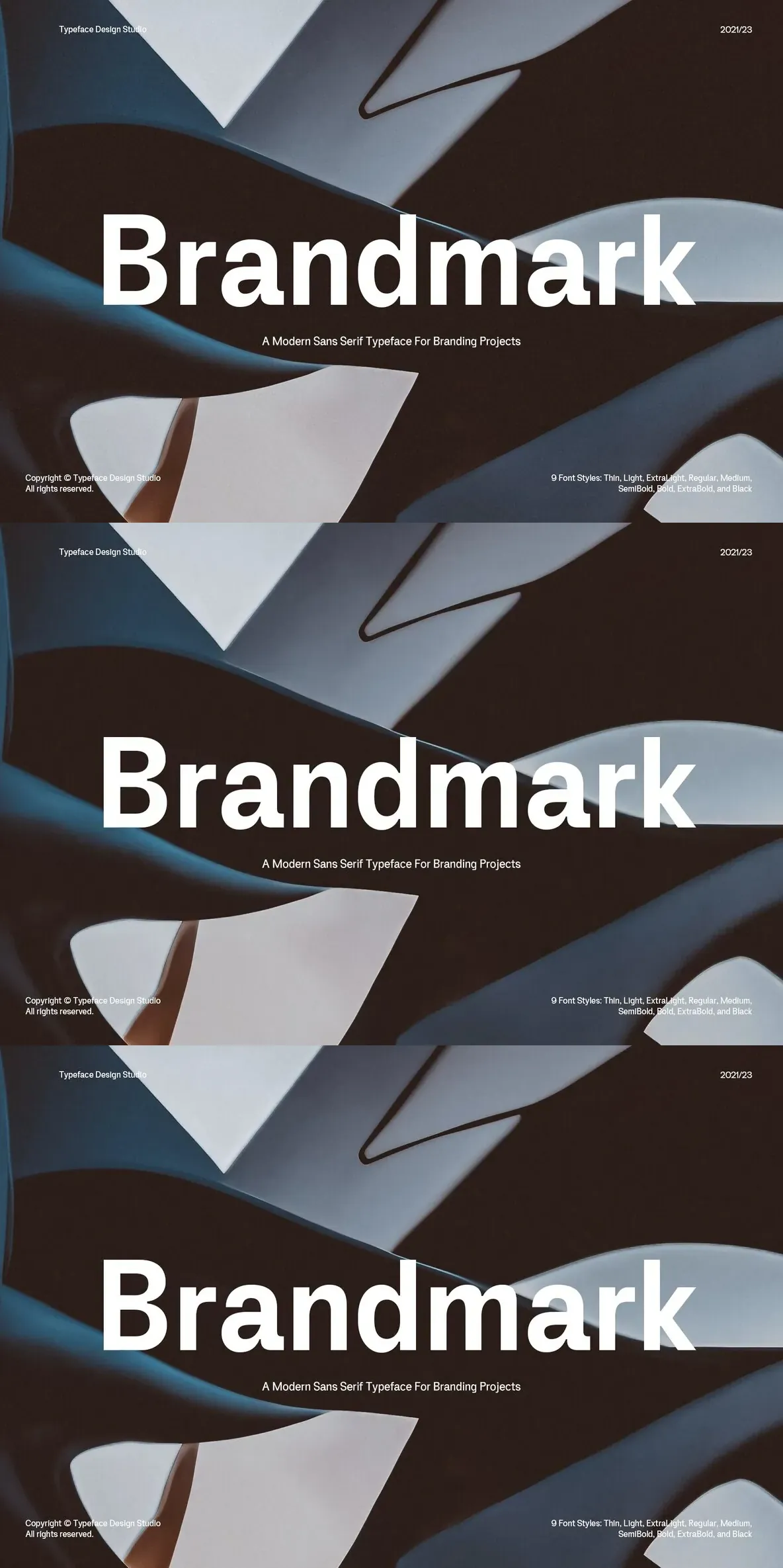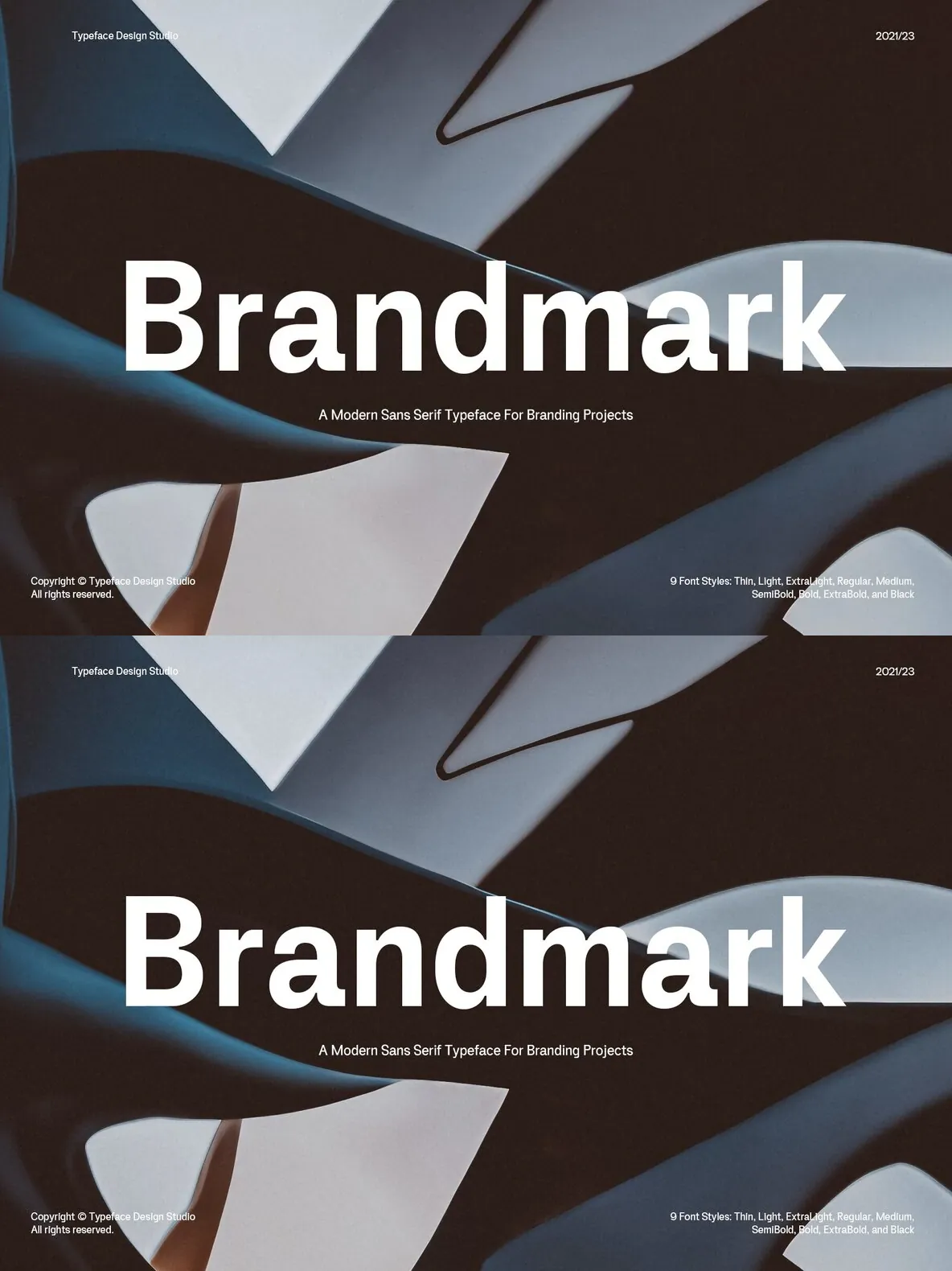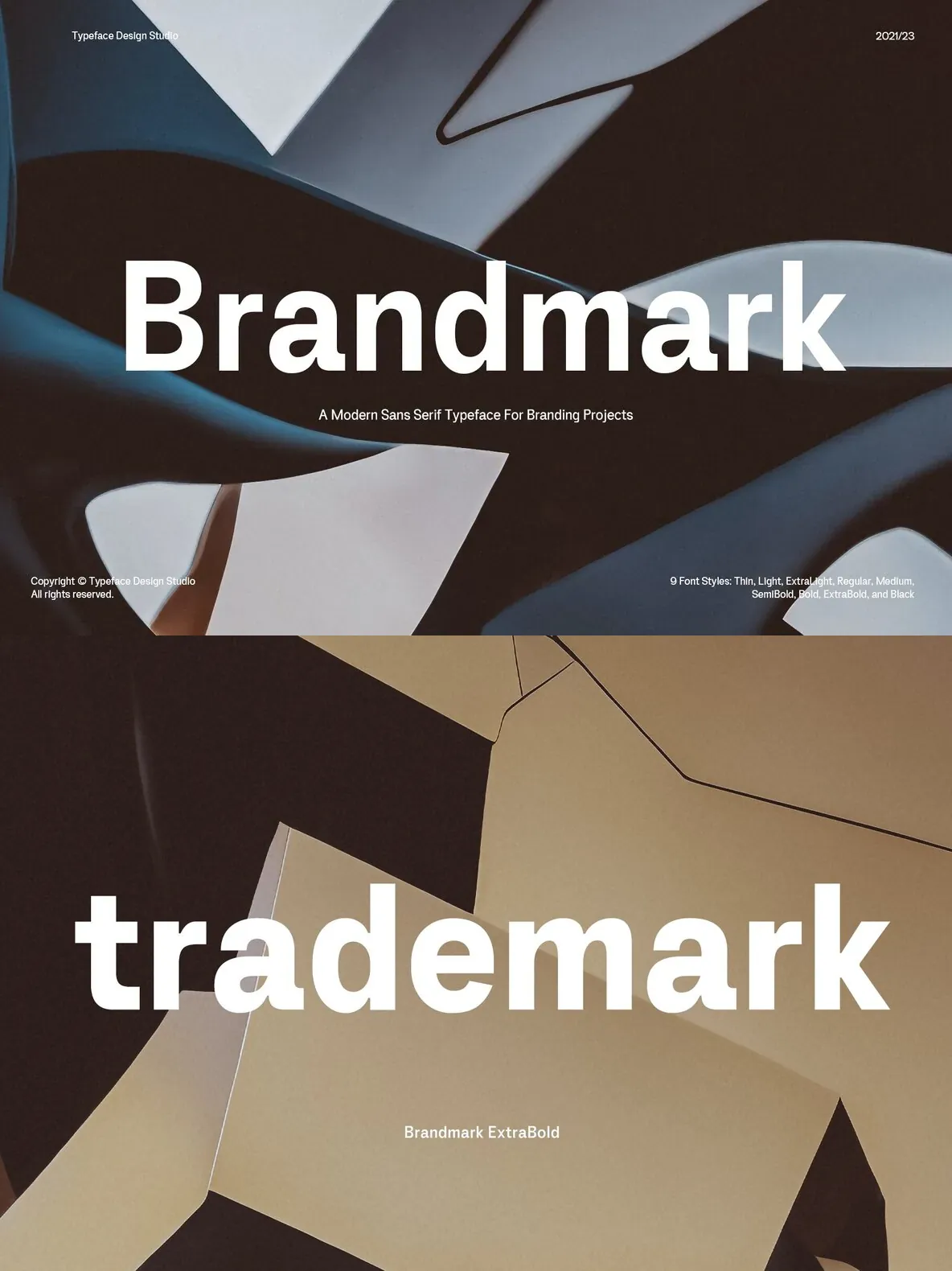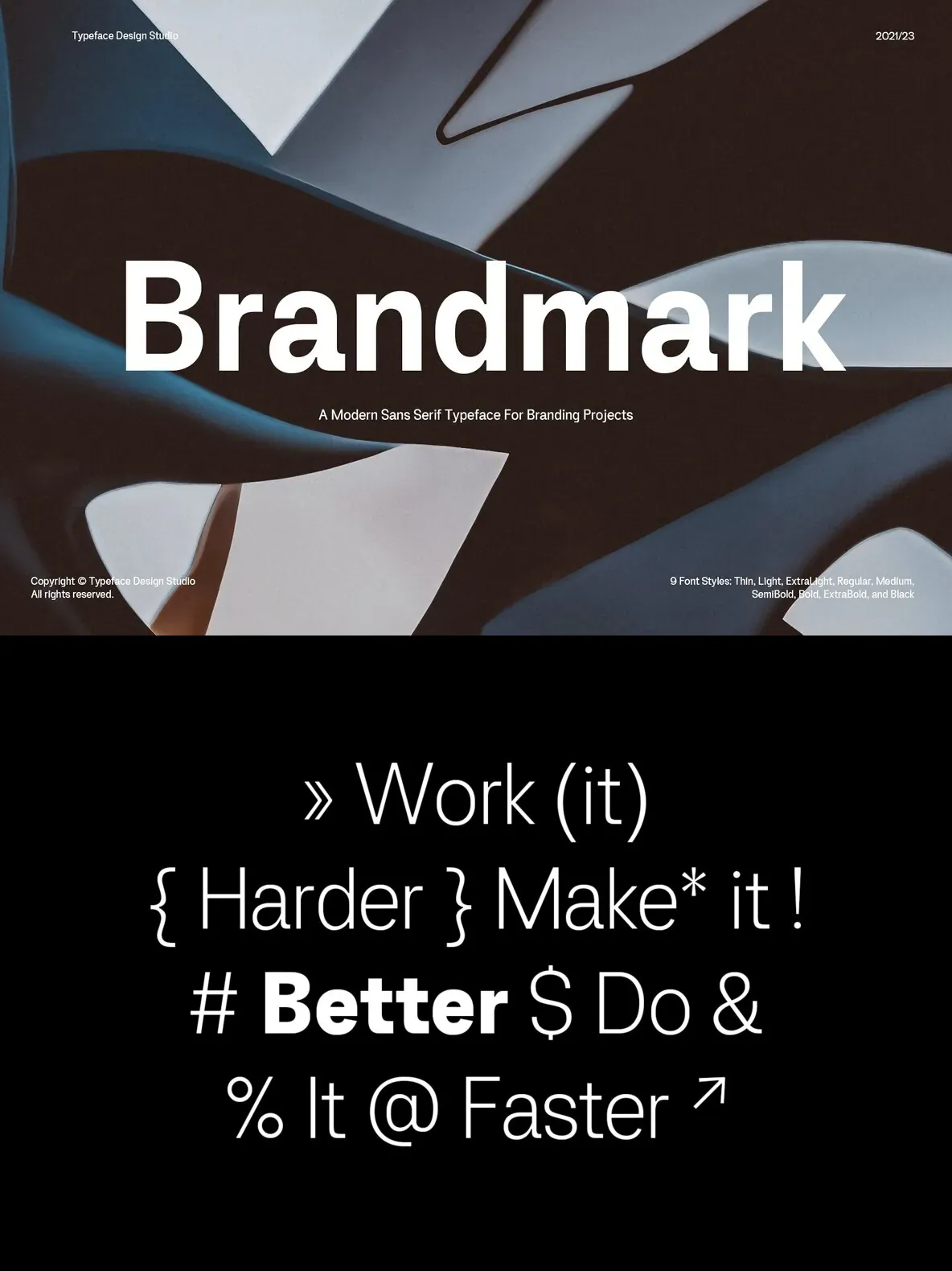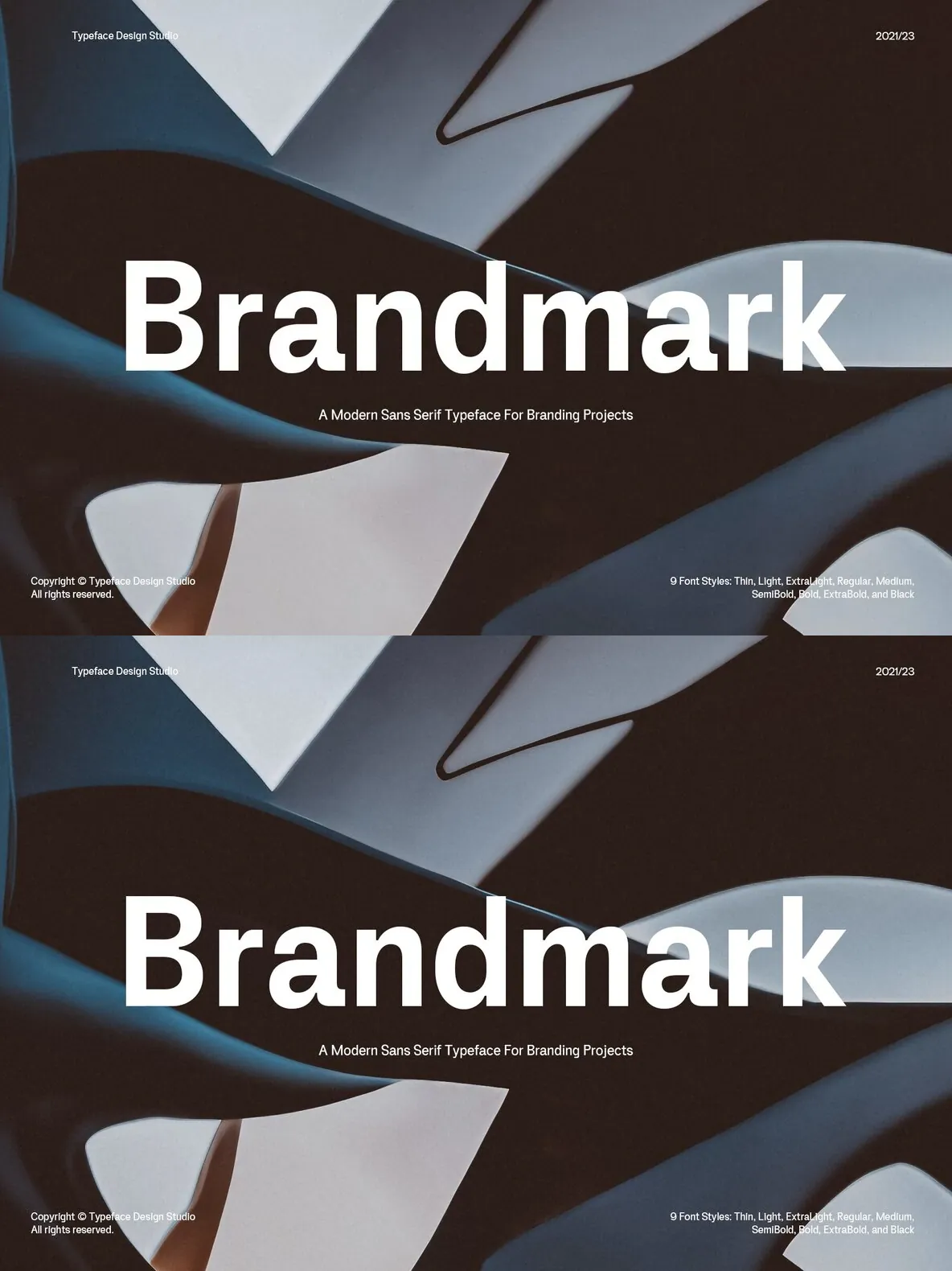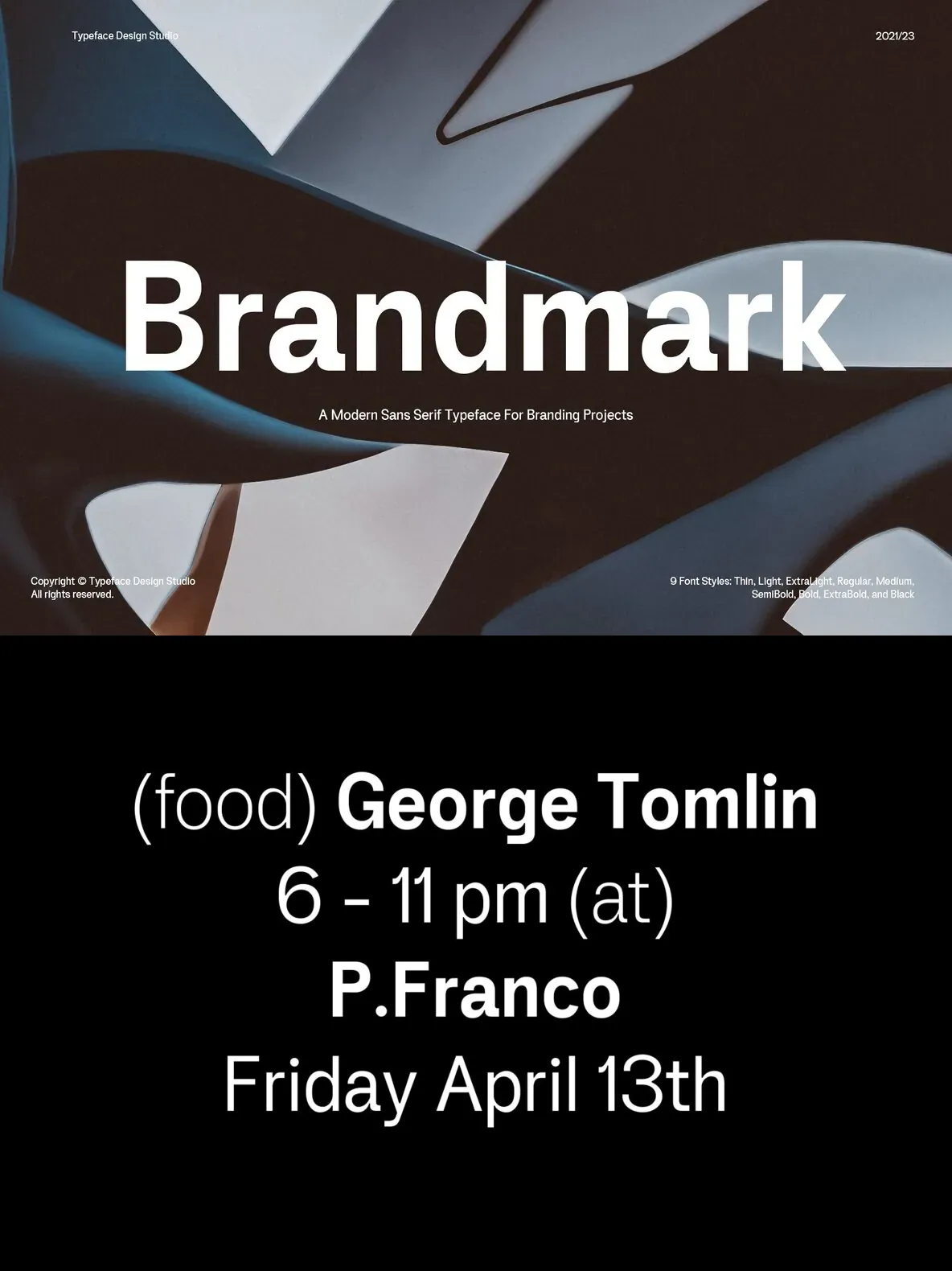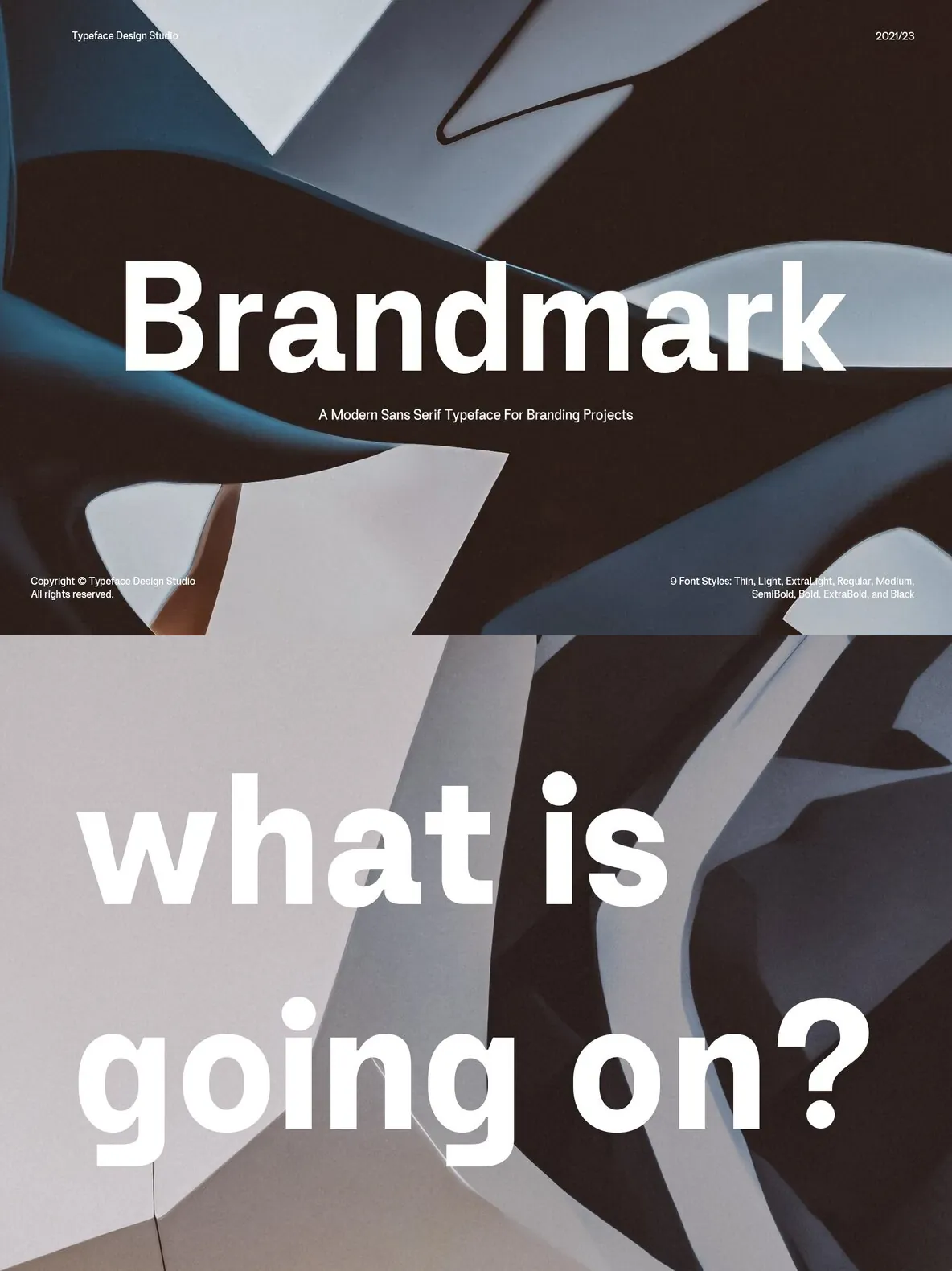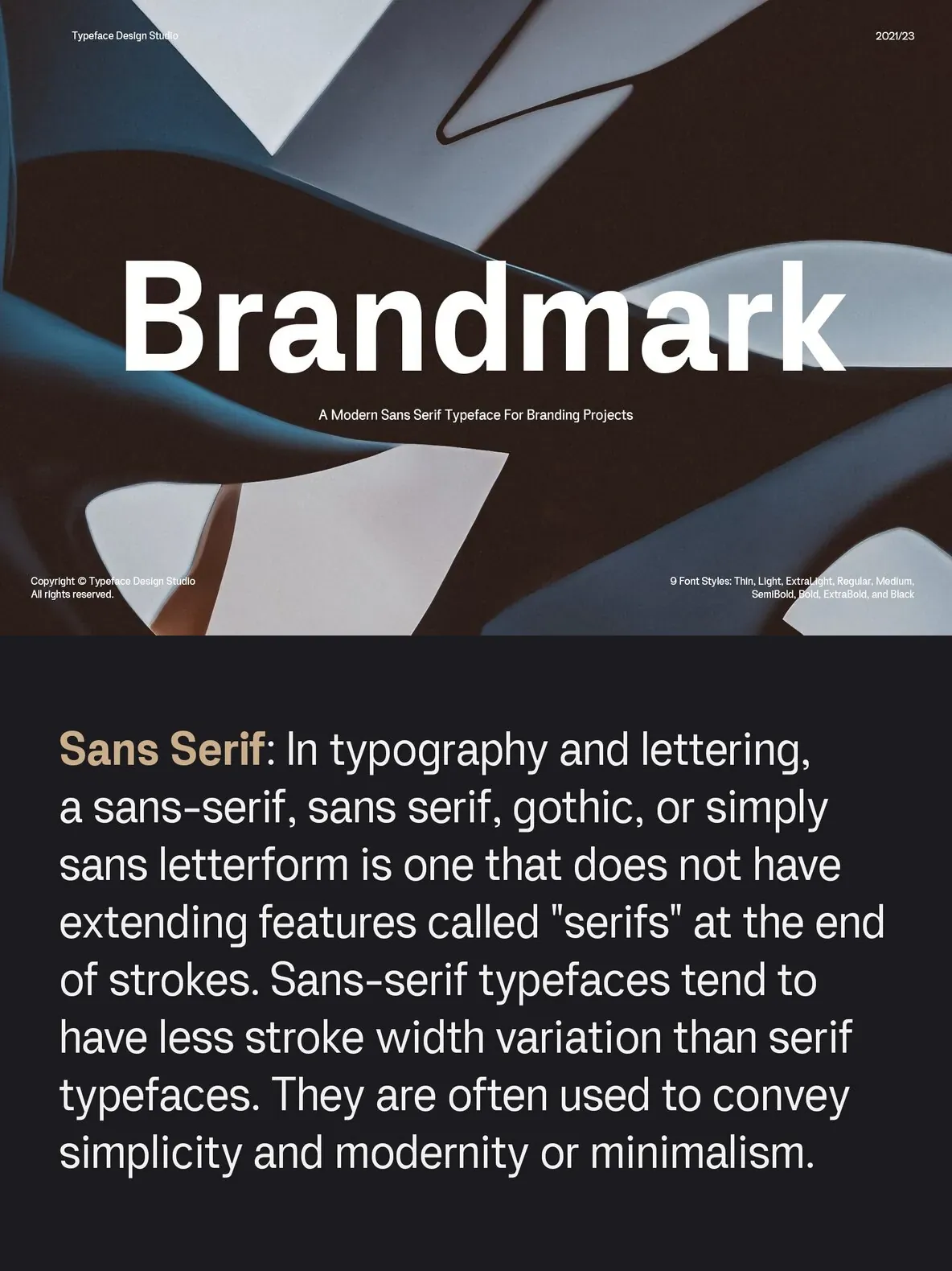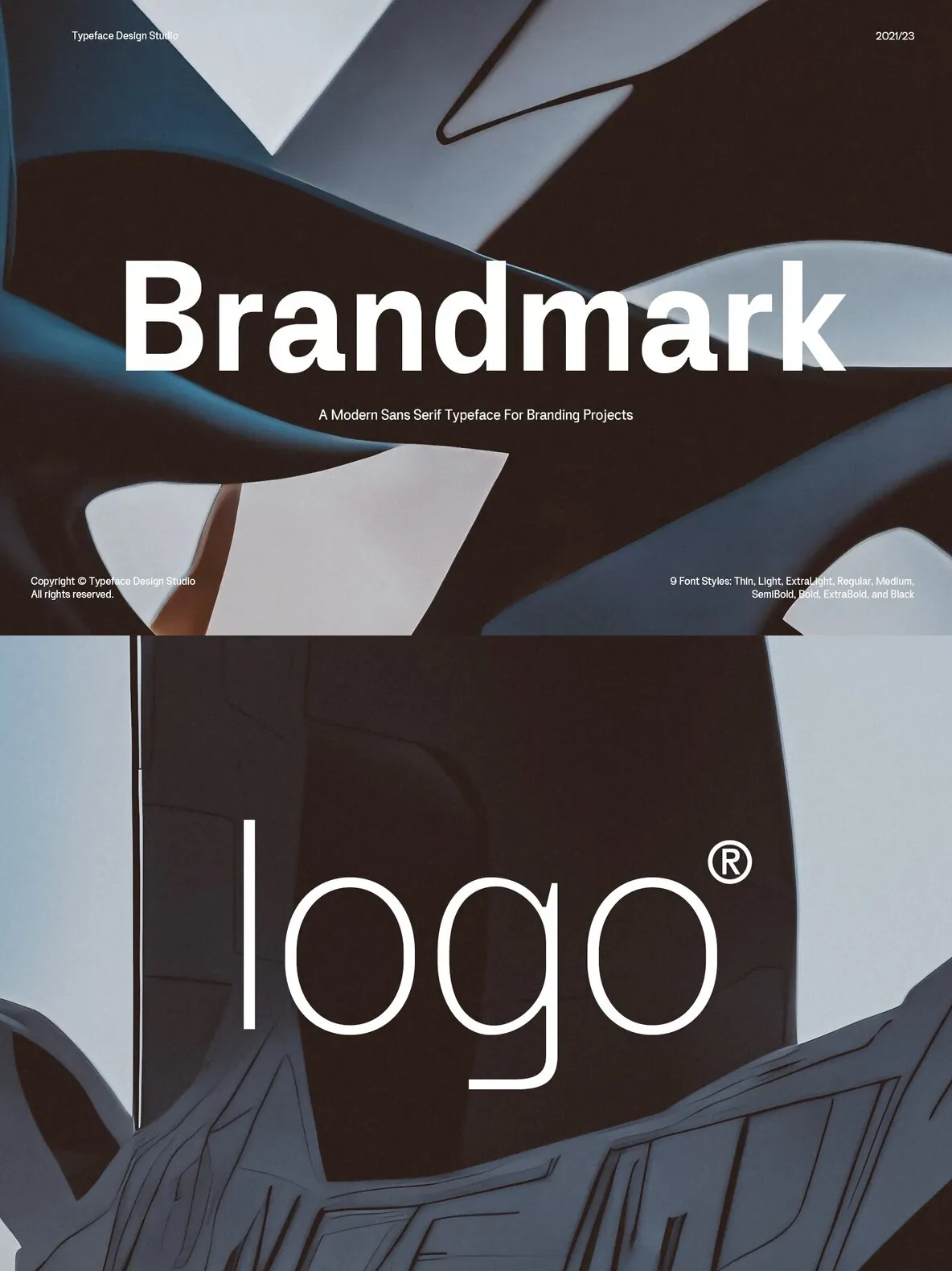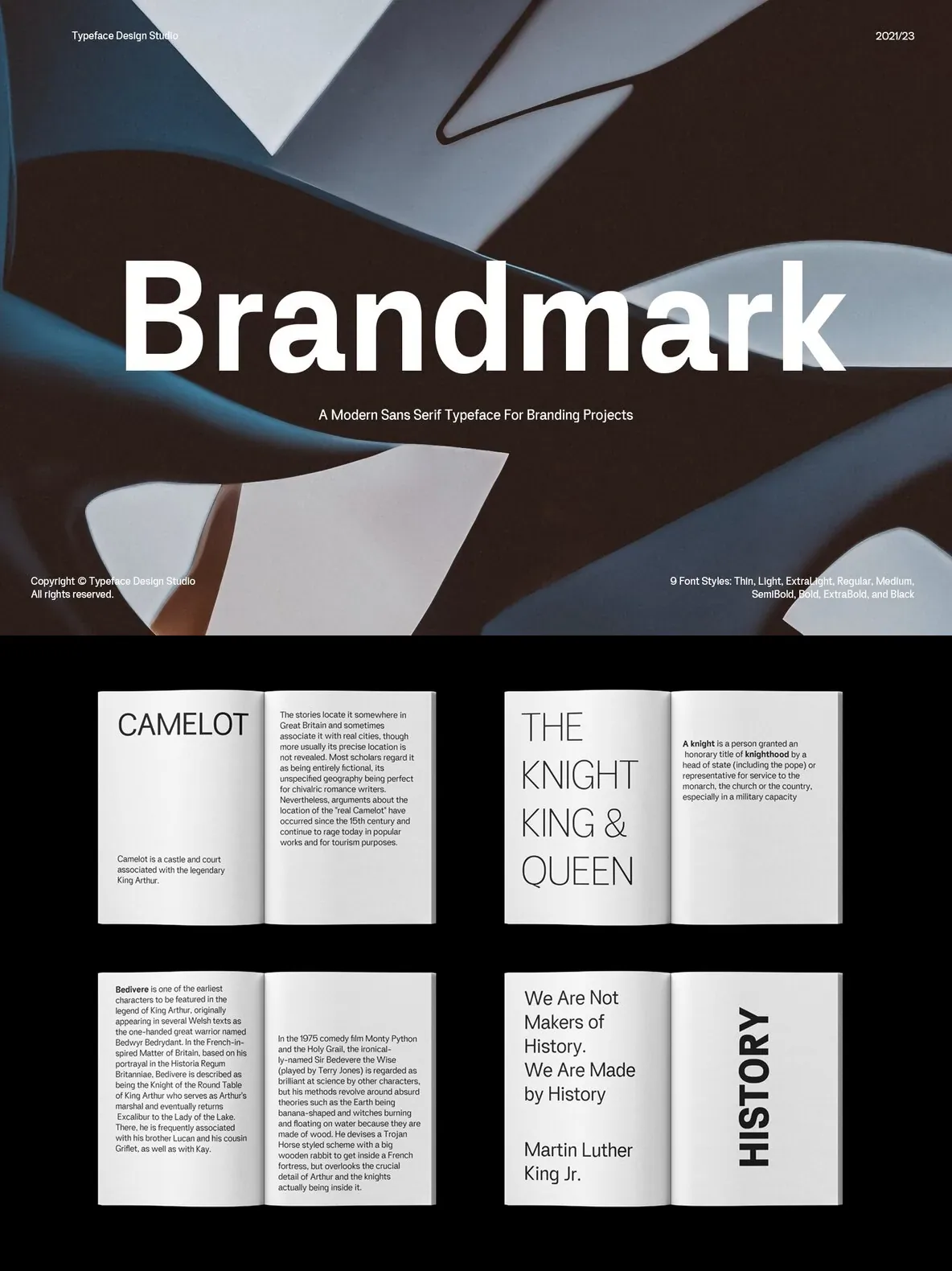
Brandmark — Modern Marks, Clean Type
Brandmark is a sans-serif font designed by Typeface Design Studio, built for logo design, branding, marketing, and copyright work. Its sleek, modern look reads clearly across sizes and formats, making it a dependable choice for professional identity systems and everyday graphic design.
The Brandmark font family includes 9 styles, ranging from thin to an extra-black font weight. This range helps you match tone and hierarchy without leaving the family. Brandmark also combines easily with other font families, so it fits naturally into existing brand guidelines and multi-typeface layouts. Creative users can also apply it to posters, books, apparel, card designs, social media designs, UI/UX, and beyond – supporting an infinite range of possibilities for this dynamic font type.